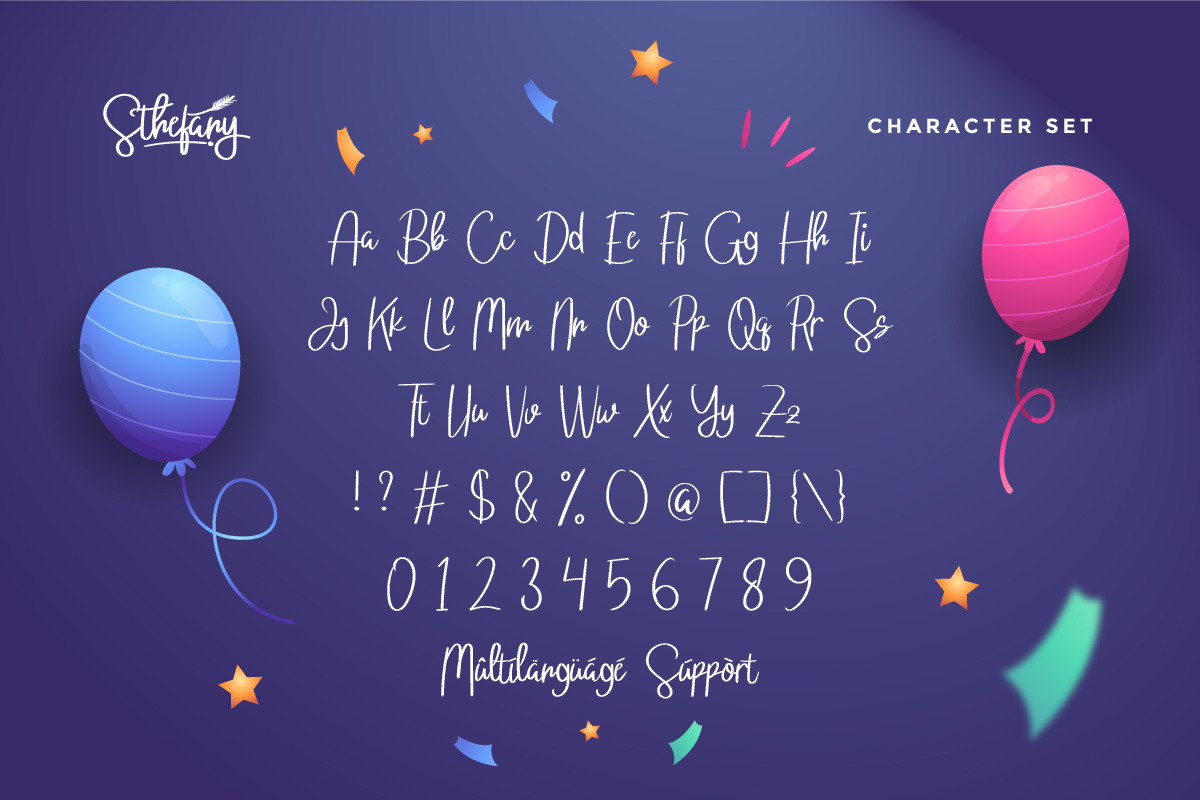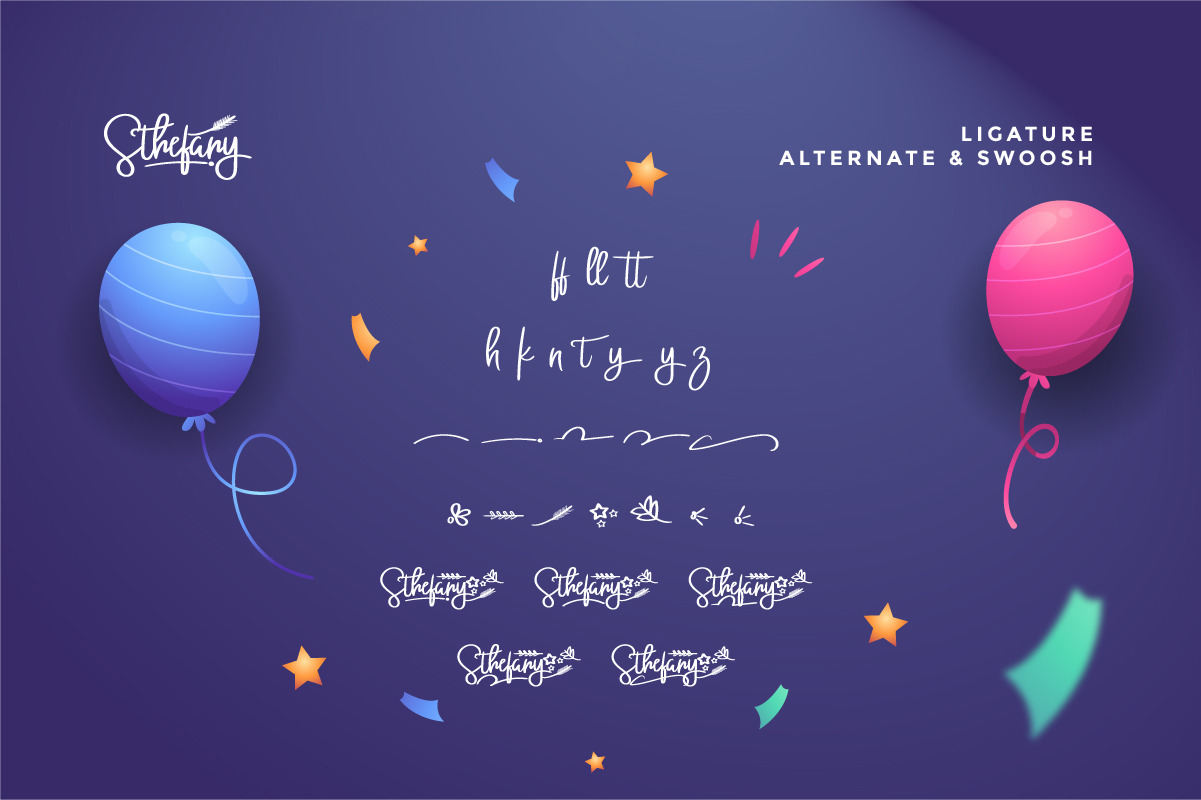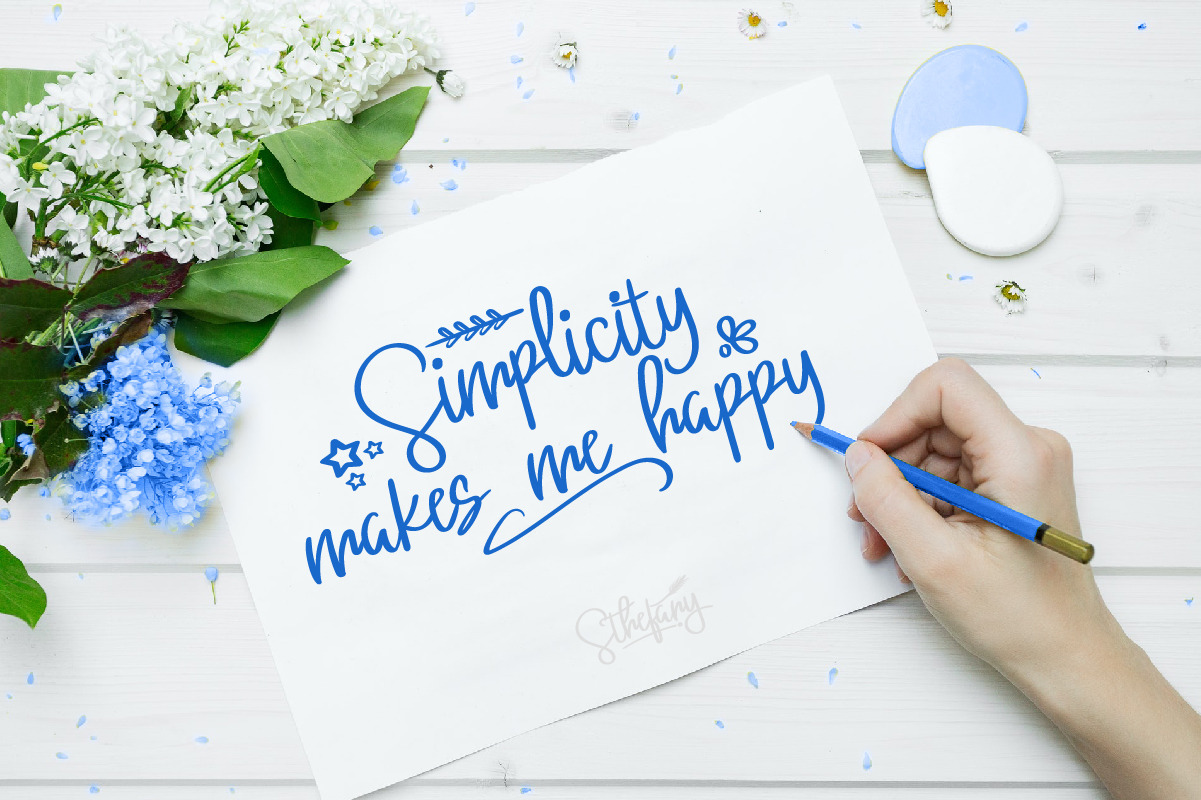
Sthefany Handwriting Font
Sthefany Font is a script font with casual handwriting style. Great for birthday themed projects too. Sthefany it will be stunning for any your special projects including : games, promotion, events, branding, advertising, magazine, apps, signage, invitation, stationery, social media posts, product packaging, product designs, label, comic, watermark or and any projects that need calligraphy handwriting style.